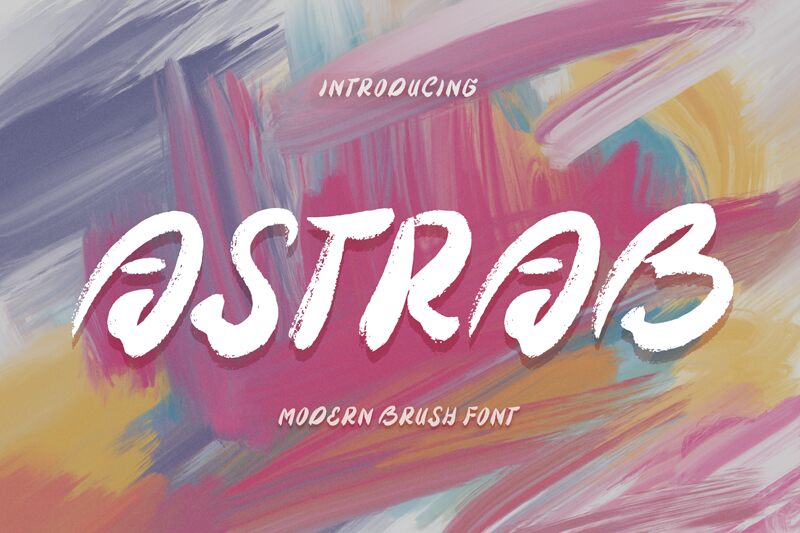
Astrab
Astrab is a bold brush font designed by Yoga Letter that can be freely downloaded. Its hand-drawn effect coupled with the sharp and uneven edges produce a unique style inspired by both calligraphy and painting.
The bold font presents its characters in an artistic manner that is highly original thanks to the different size and appearance of its characters.
Astrab is perfect for social media posters and branding titles, movie title cards, logotypes and quotes, branding and packaging designs, poster and banner designs and many others.